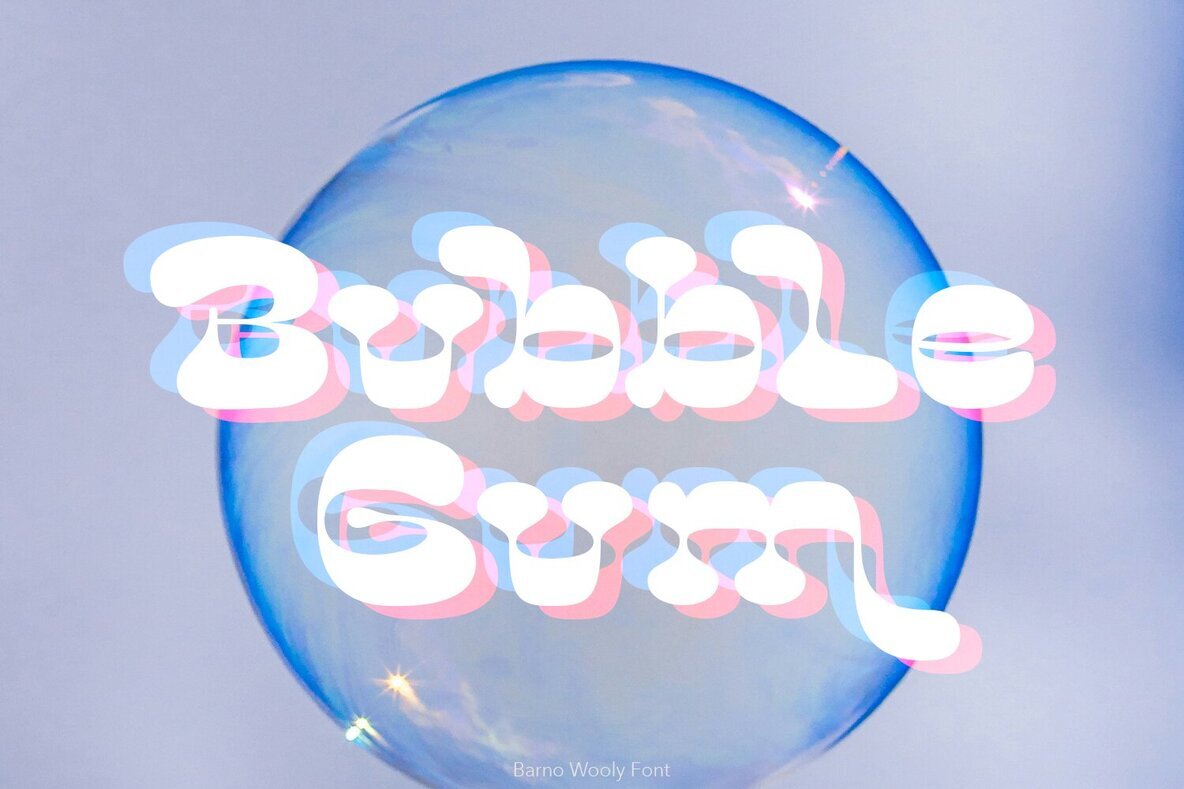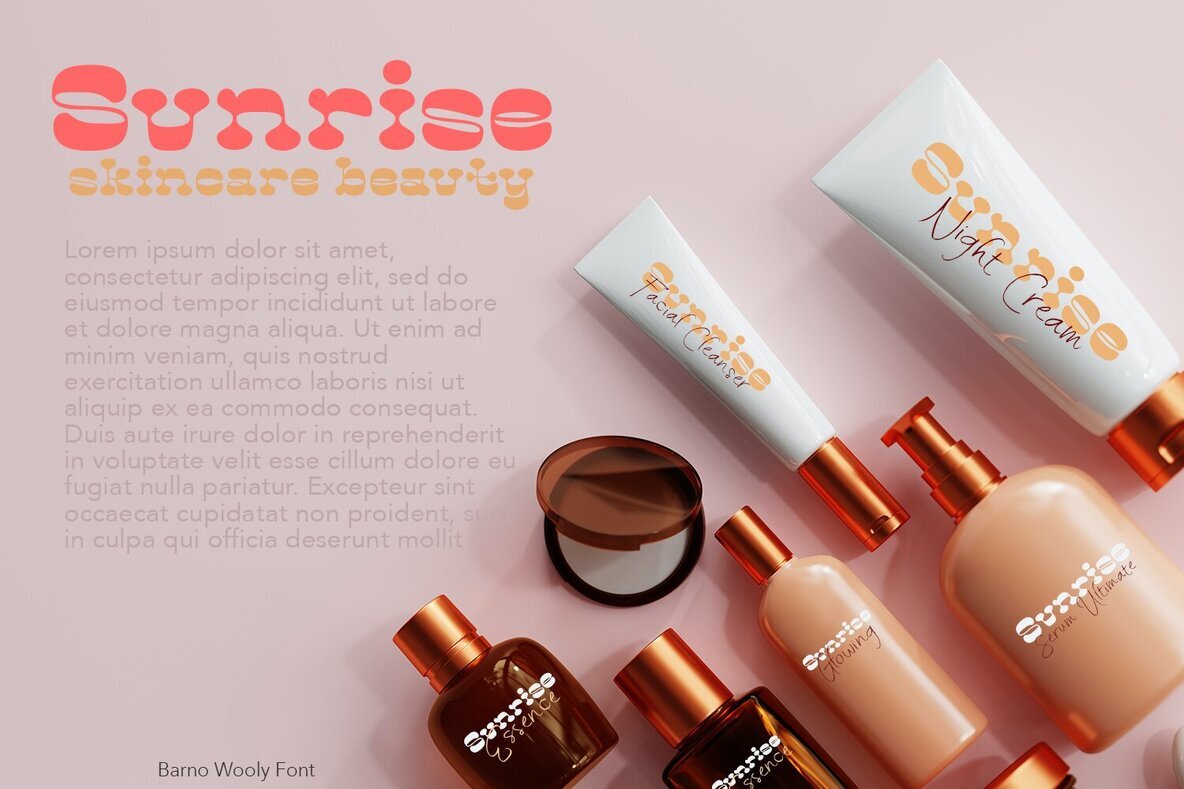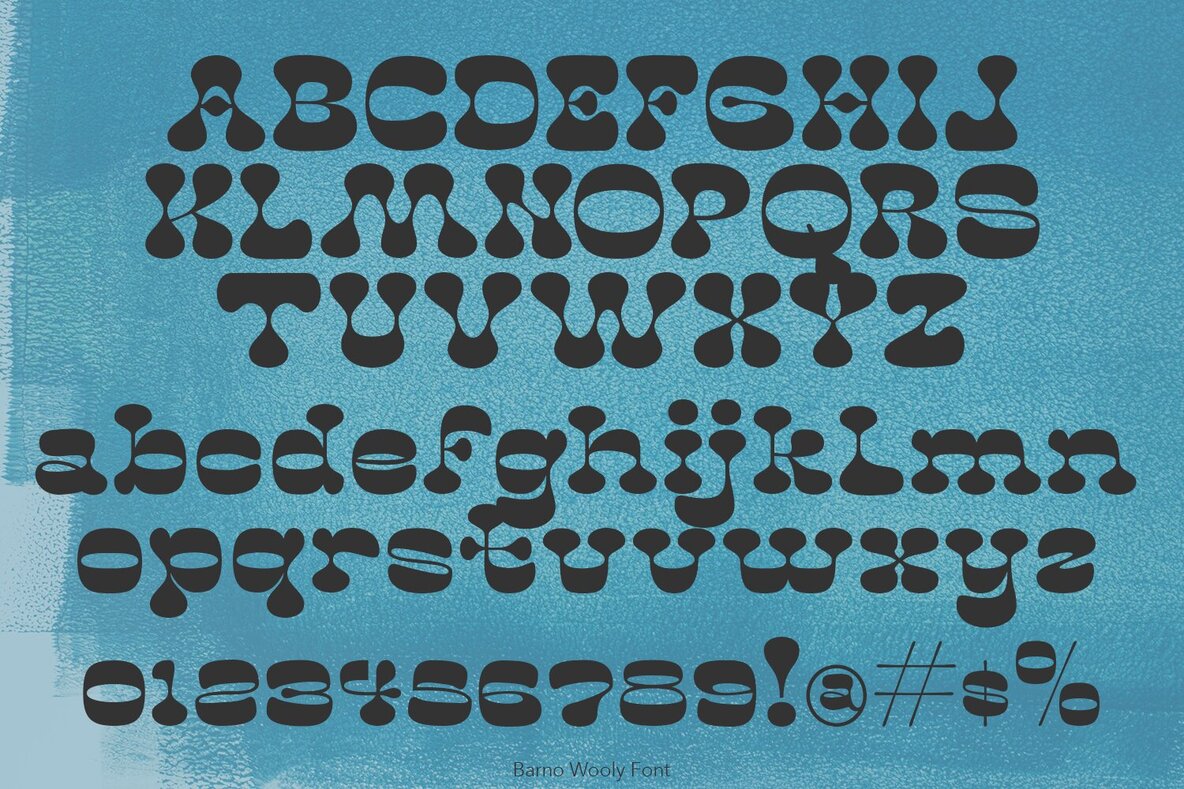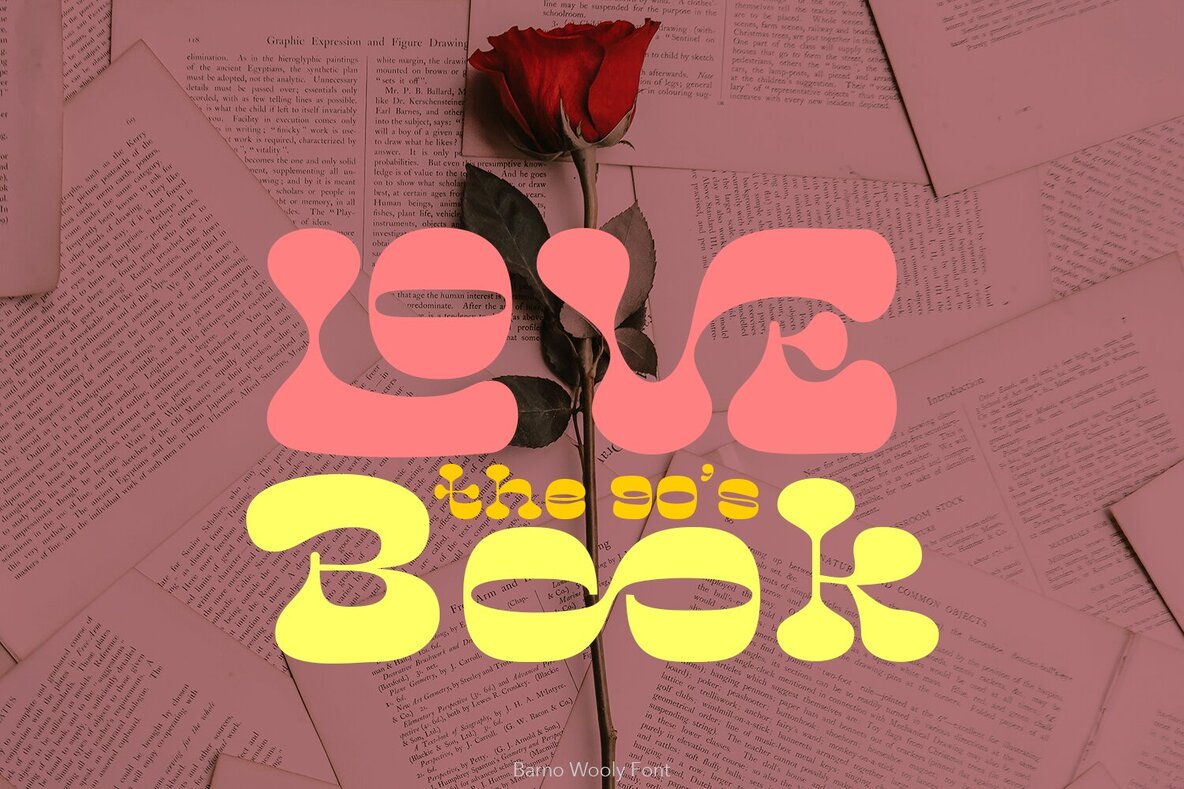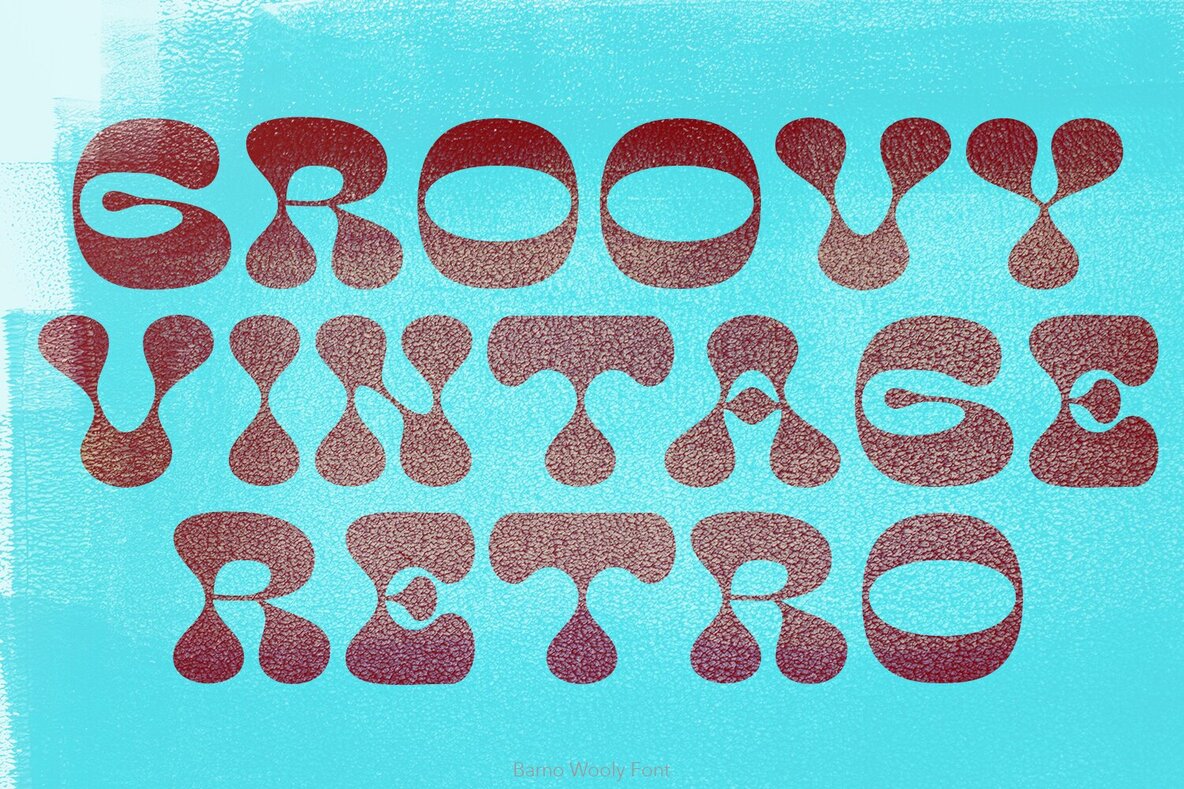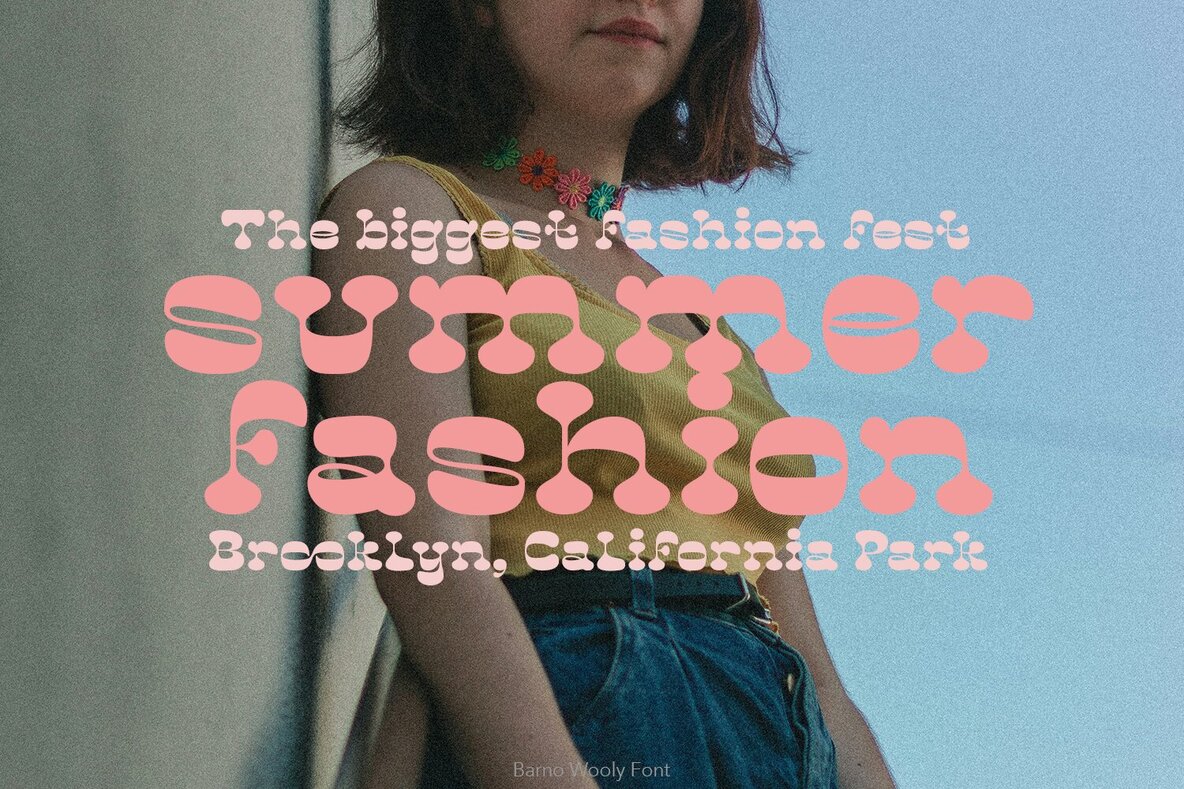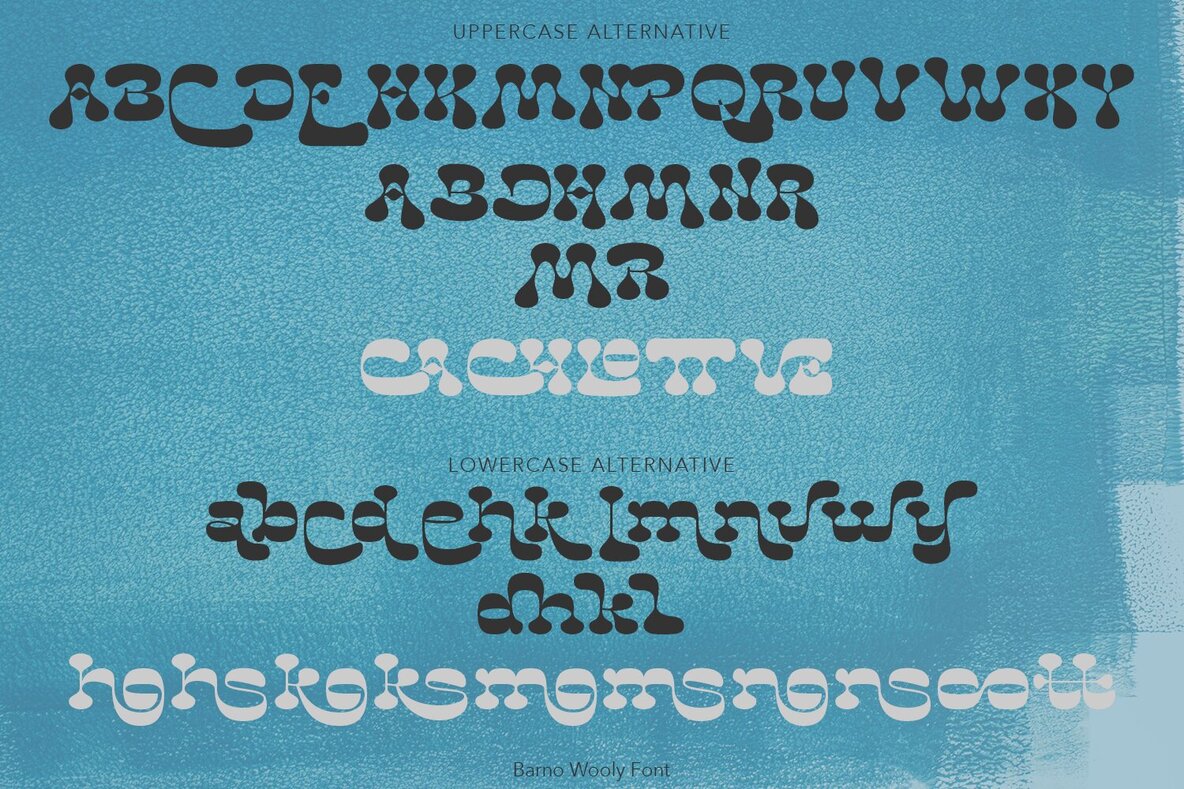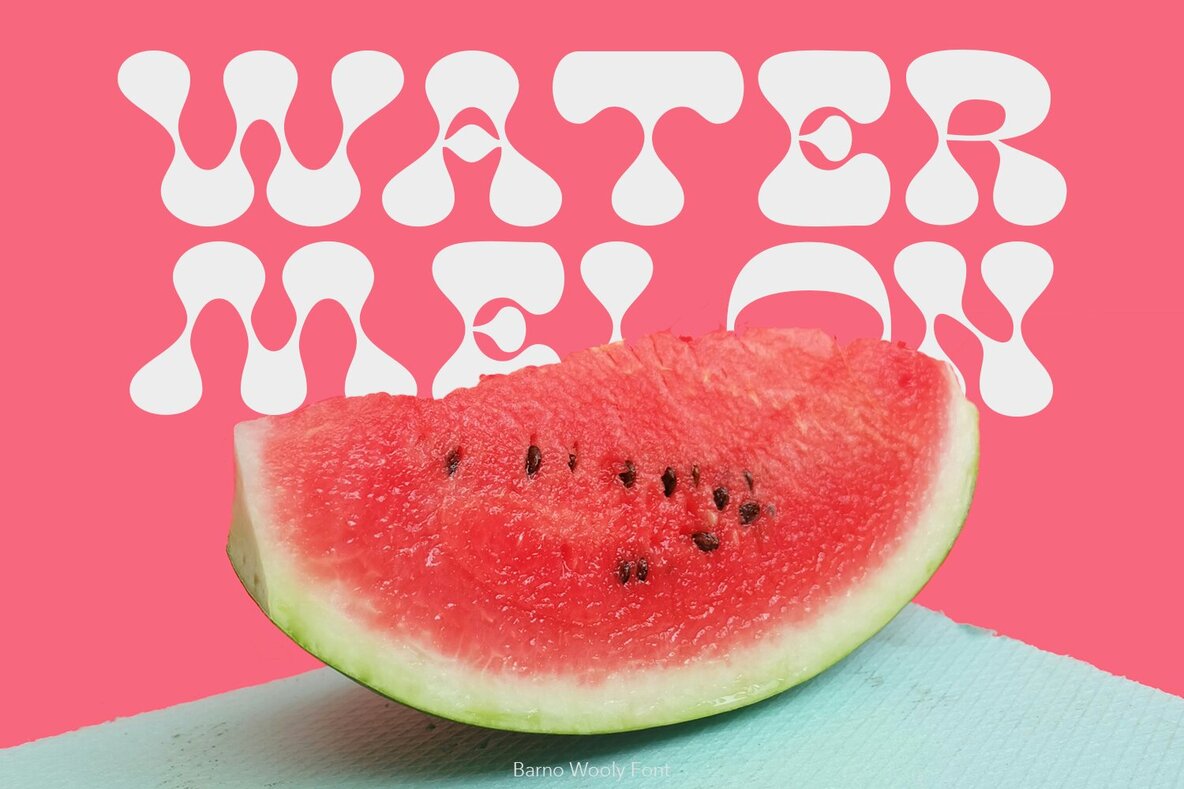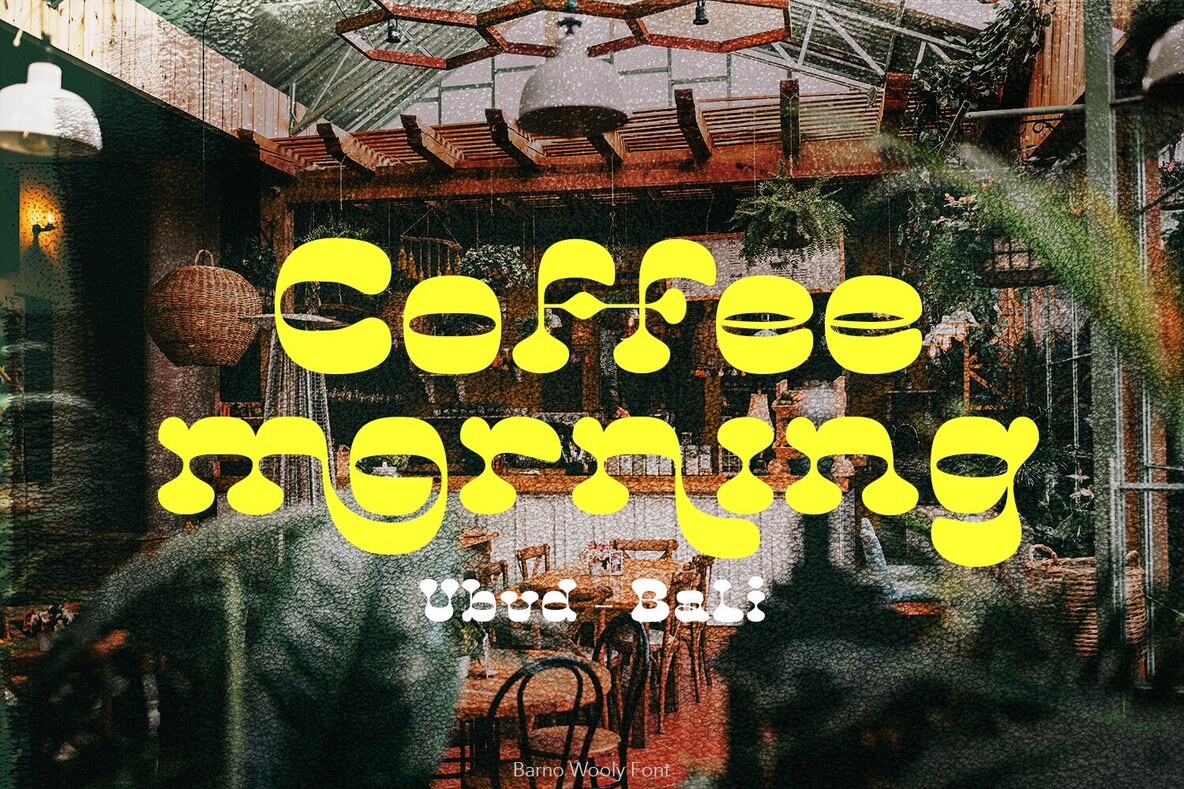
Barno Wooly Font
Barno Wooly
Barno Wooly is crafted to evoke a groovy and vintage aesthetic. This font has the potential to elevate your creative projects to new heights. Featuring ligatures and special alternative glyphs, Barno Wooly allows for endless possibilities in layouts and compositions. It brings the distinct flair of the 60s and 70s bespoke custom typography to logos, websites, social media quotes, wedding branding, and more.Barno Wooly: Groovy Vintage Typeface